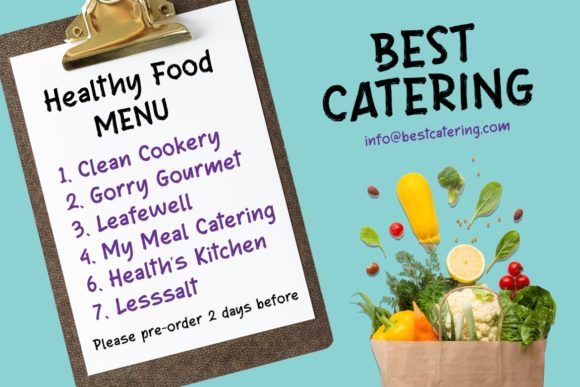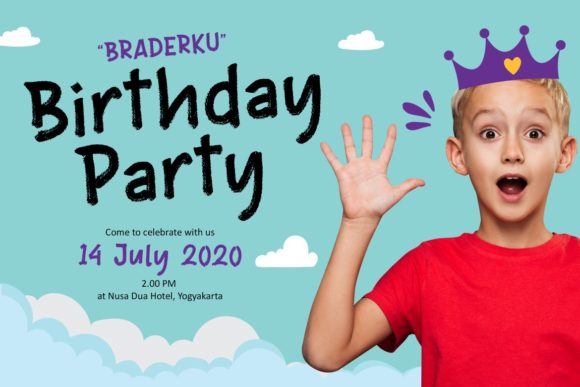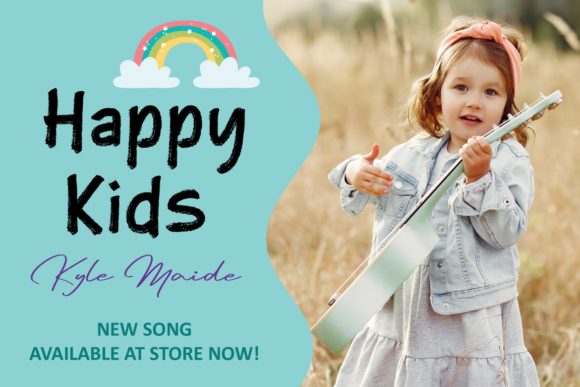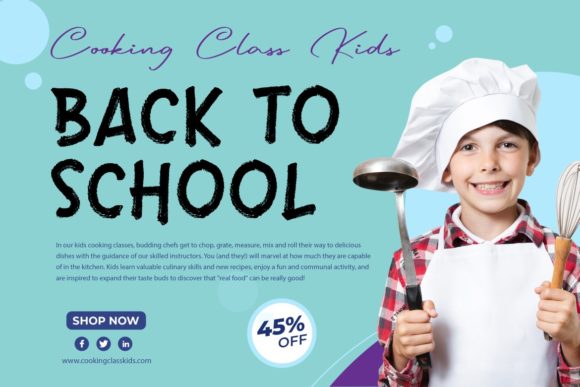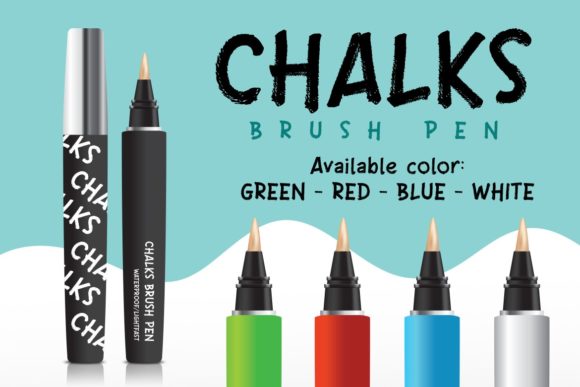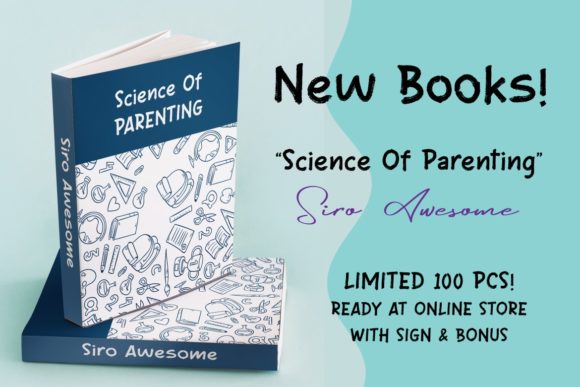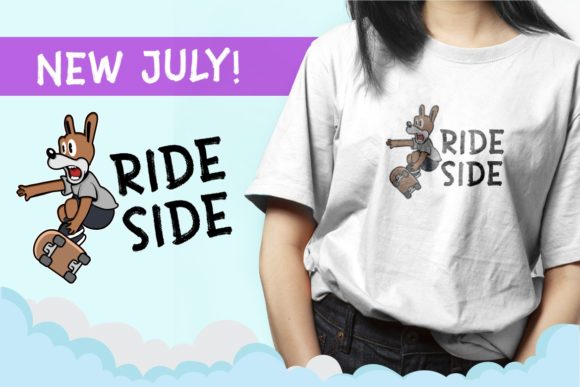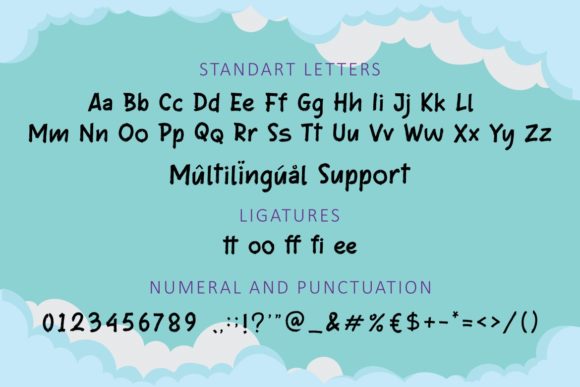
Better Chalk Font
About Better Chalk Font
Better Chalk is a sweet and friendly handwritten font. Its natural and unique style makes it incredibly fitting to a large pool of designs. The only limit is your imagination!